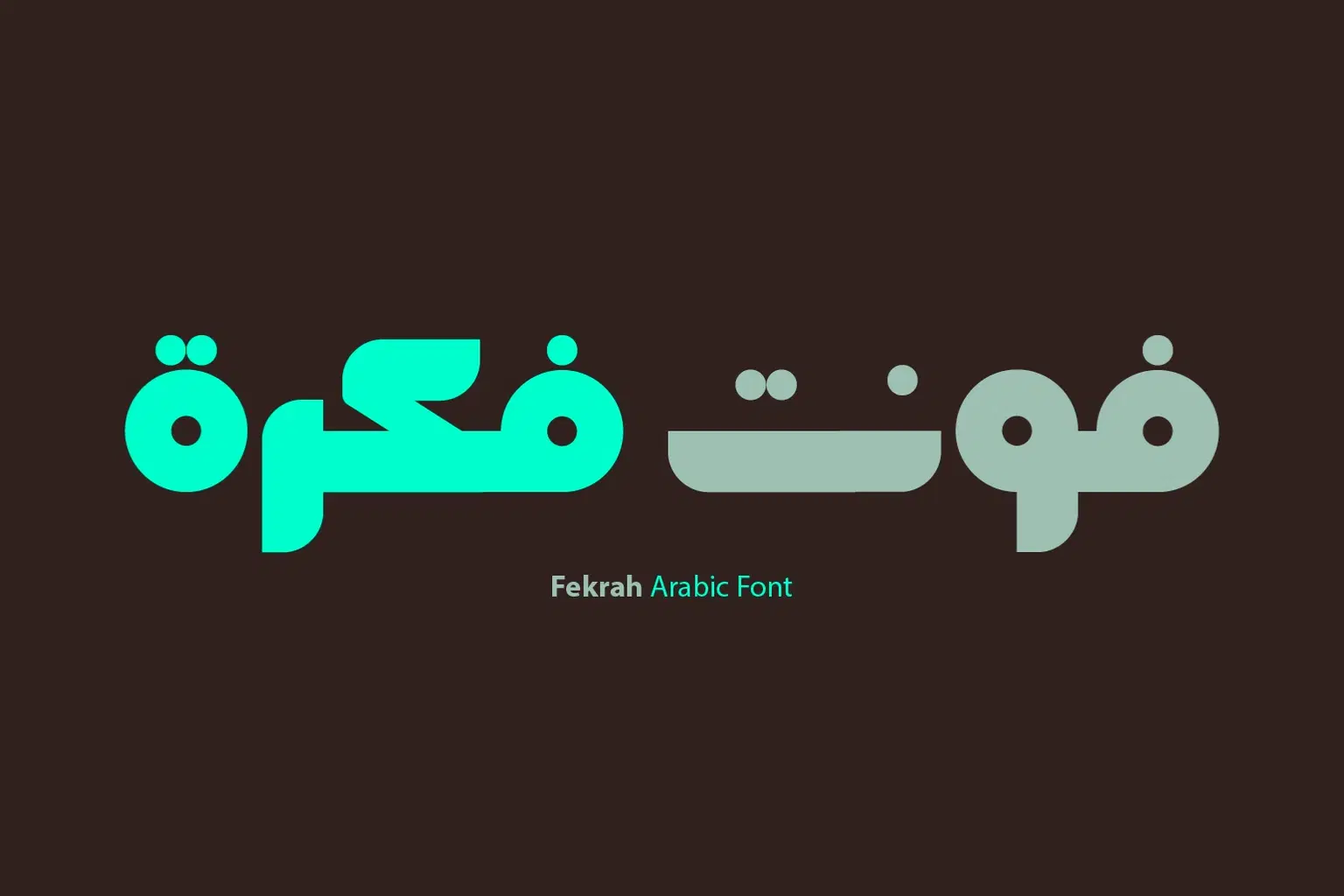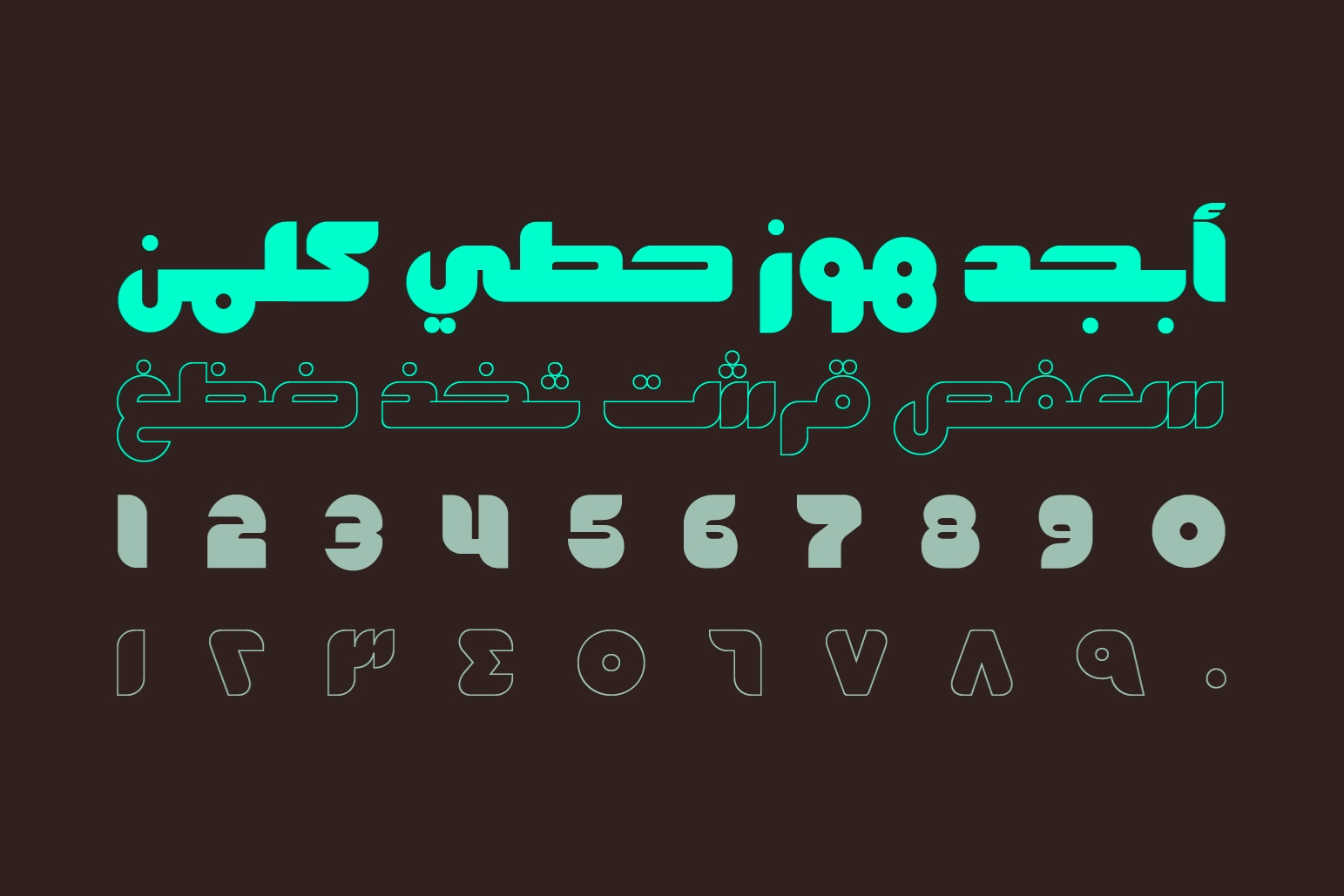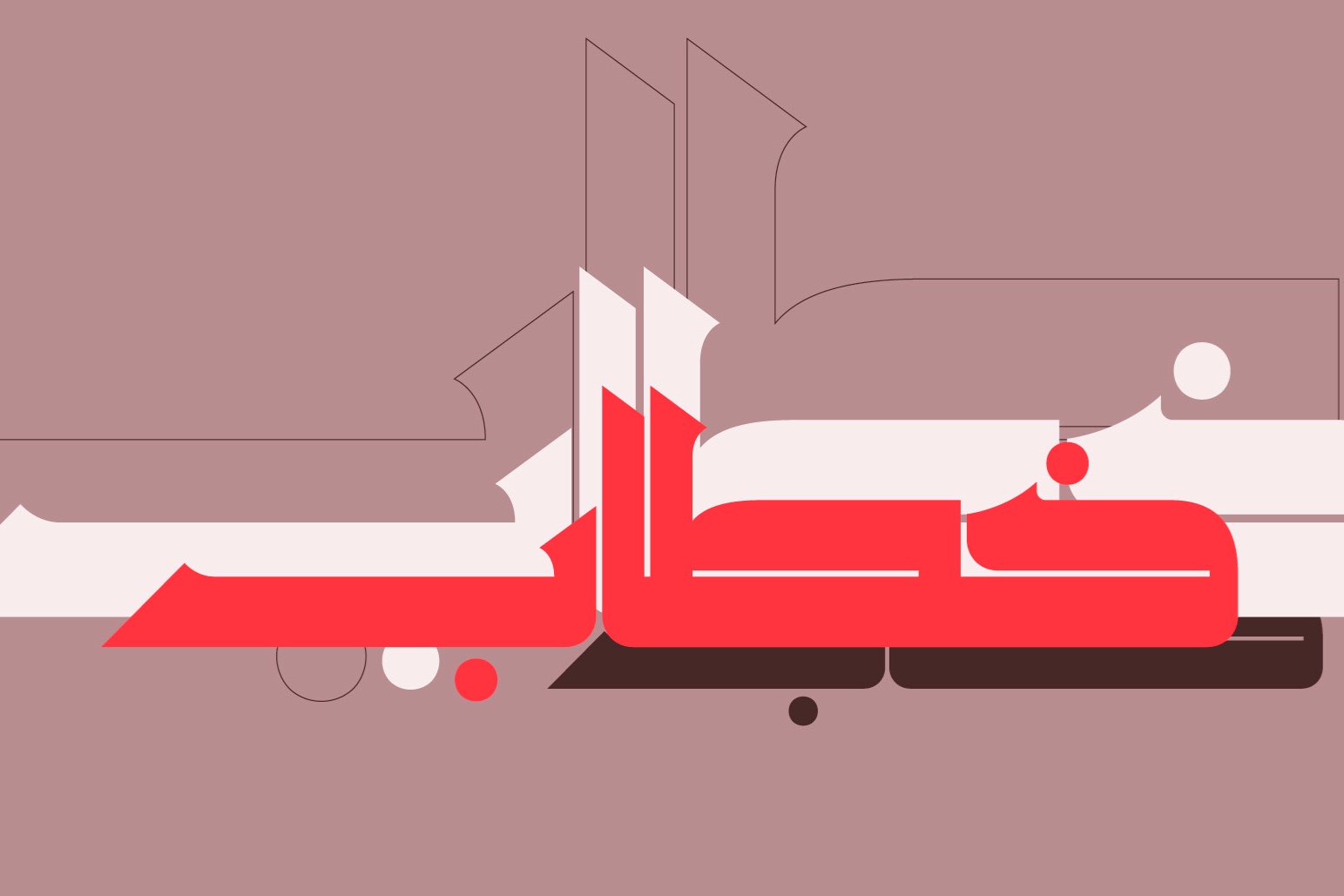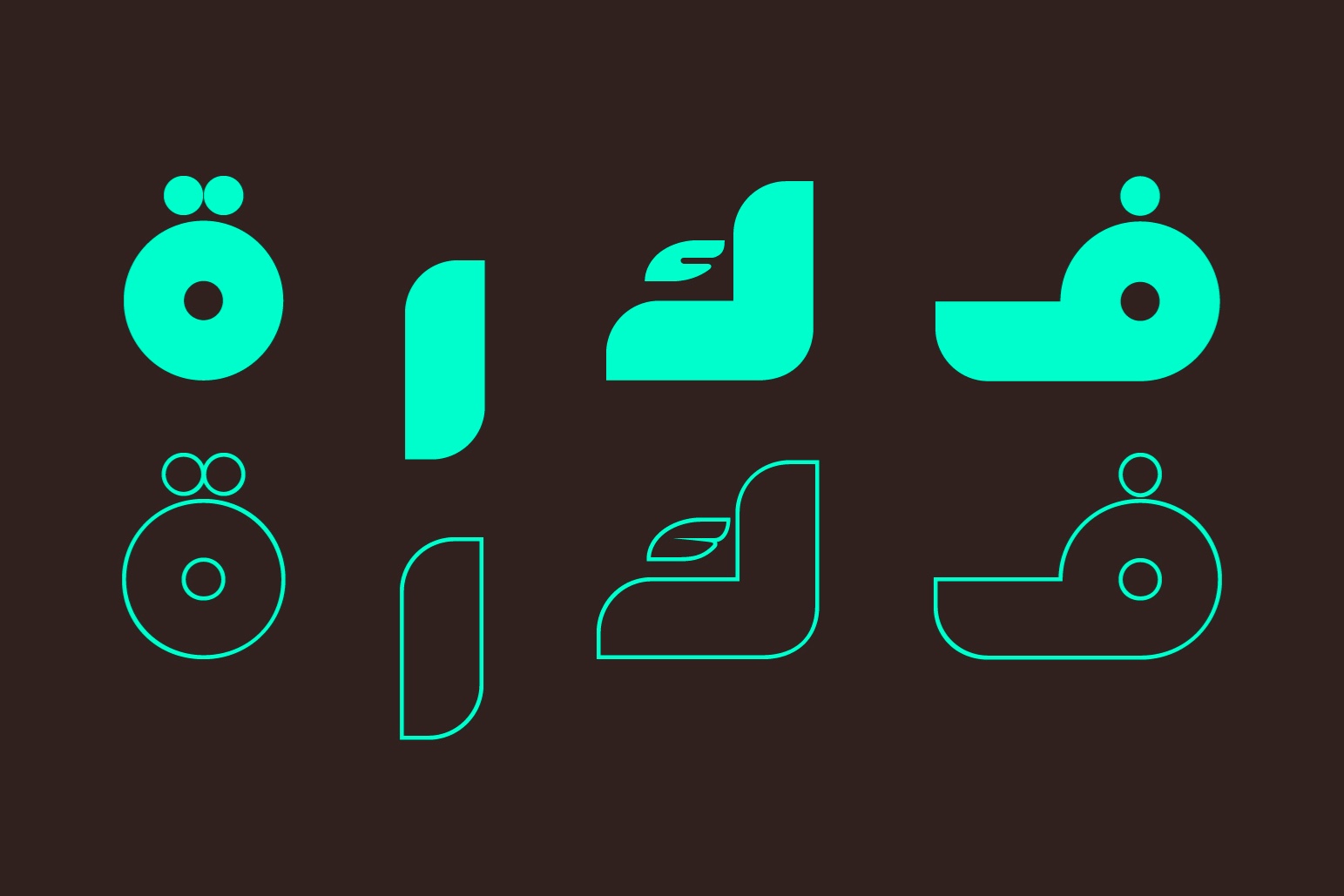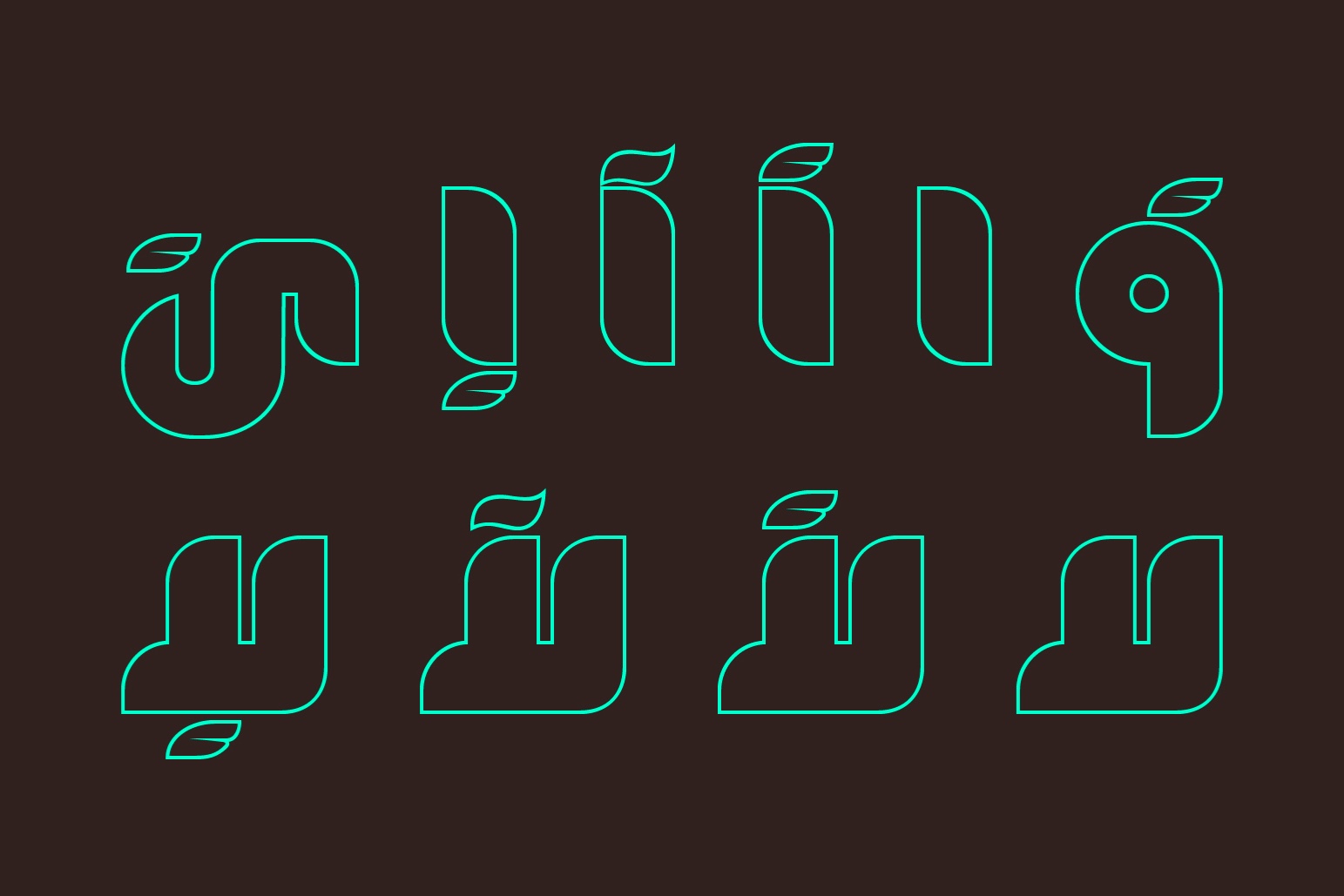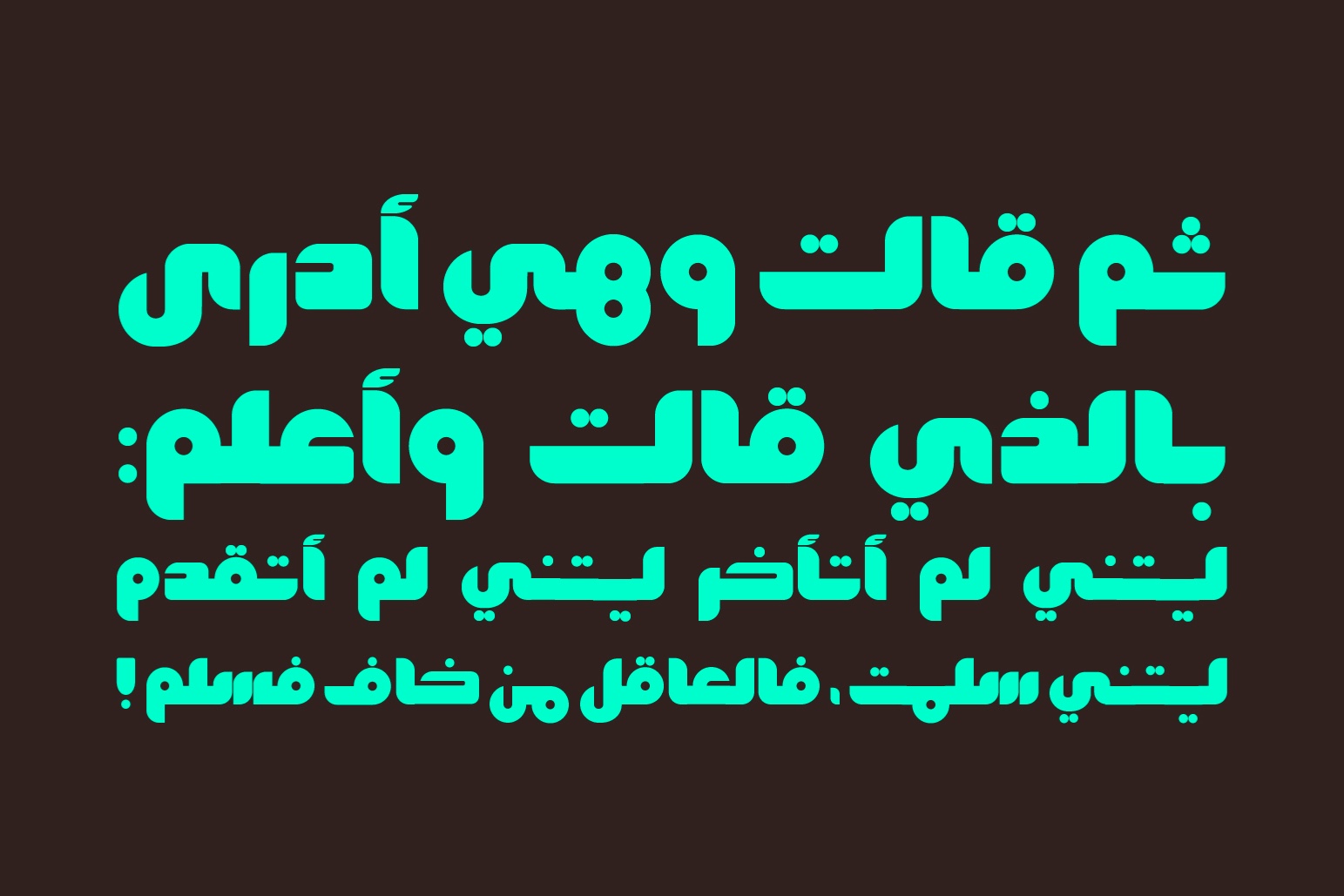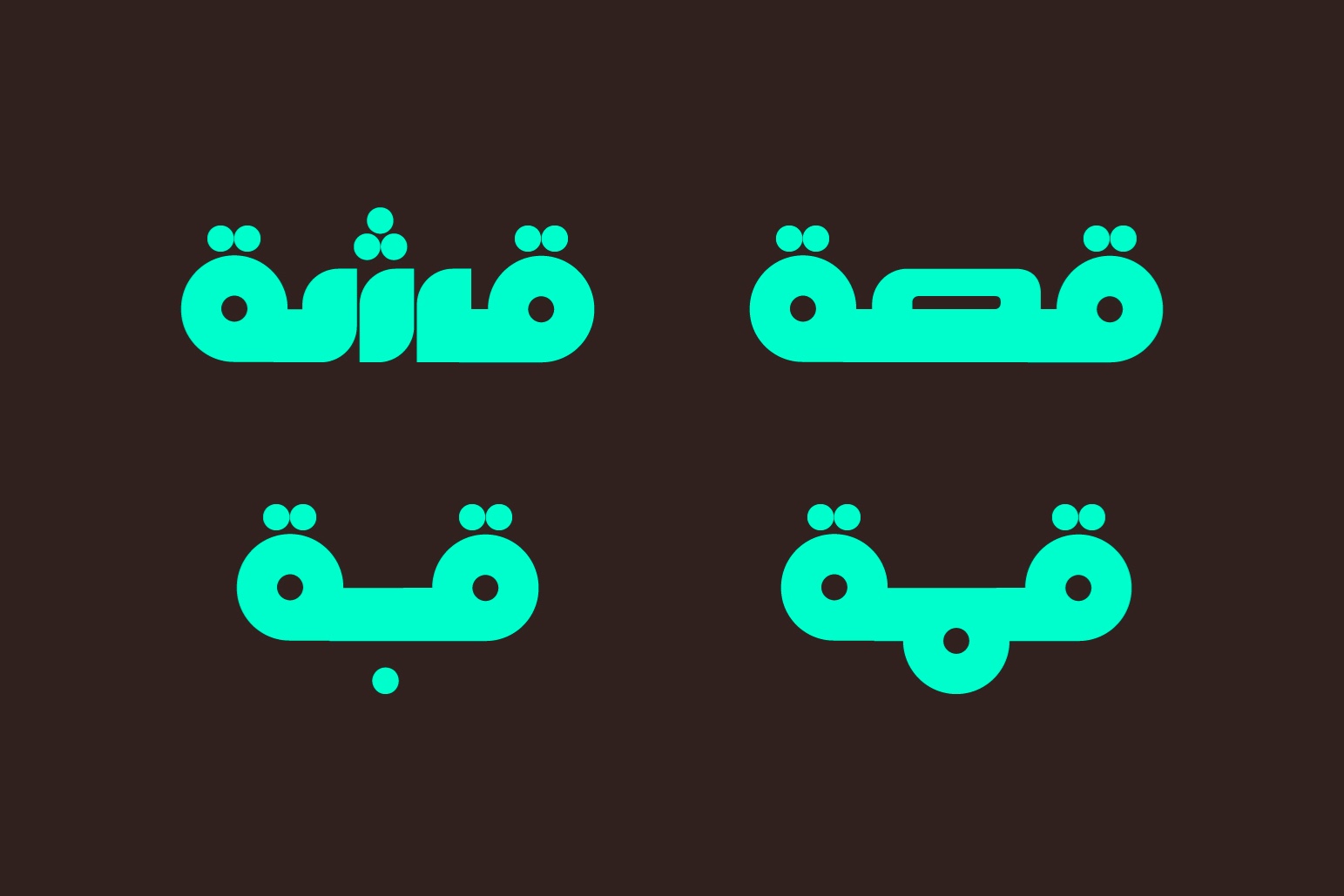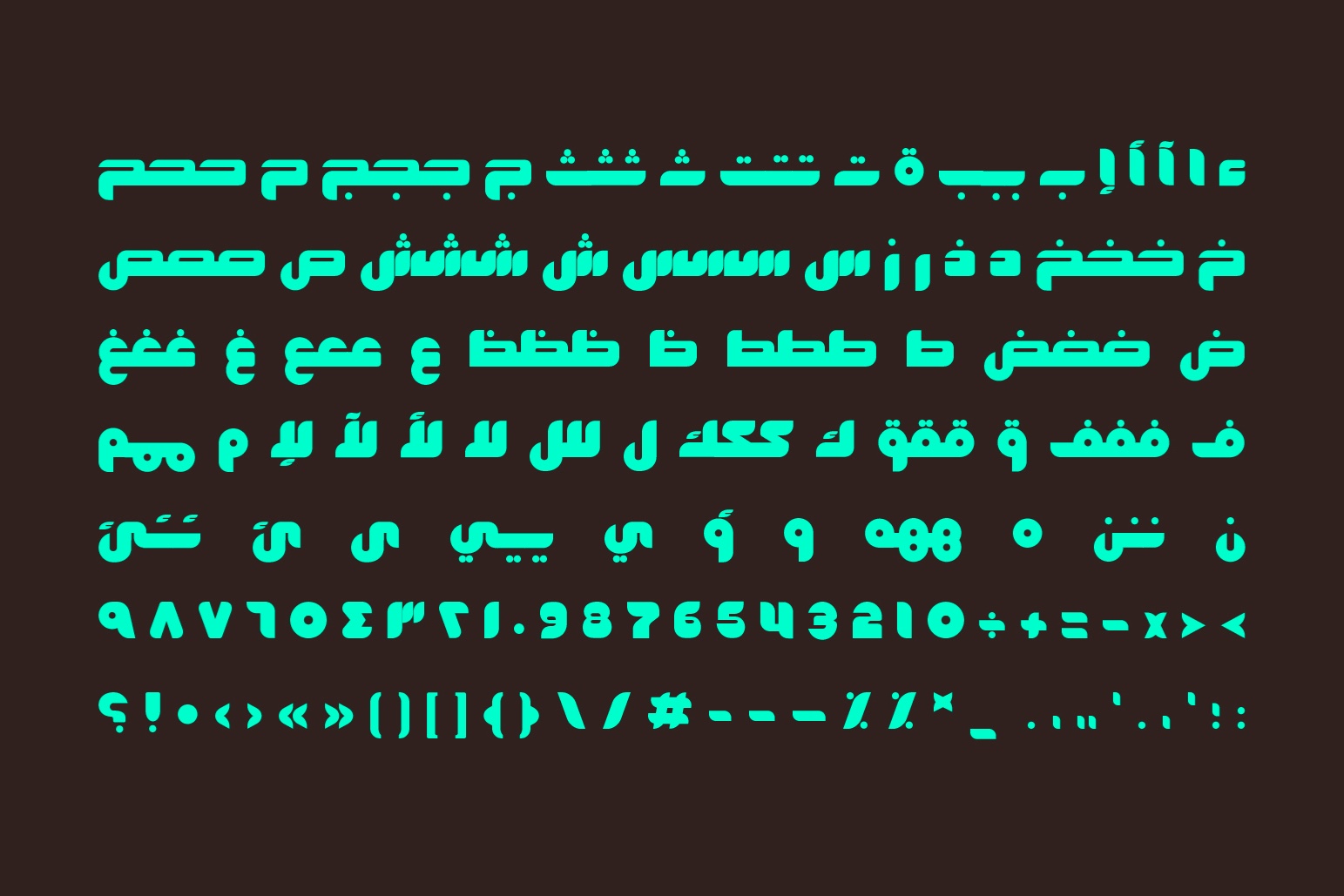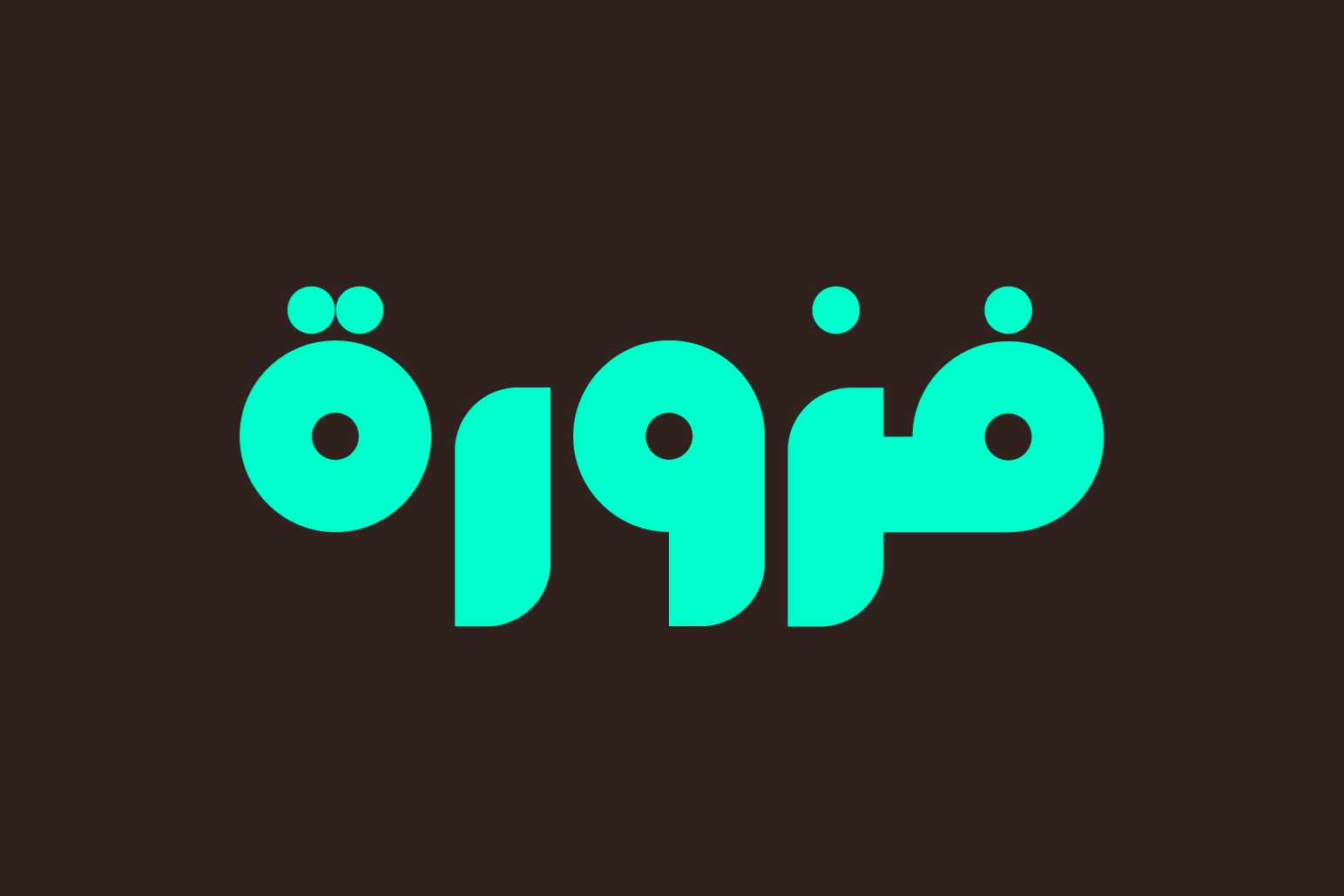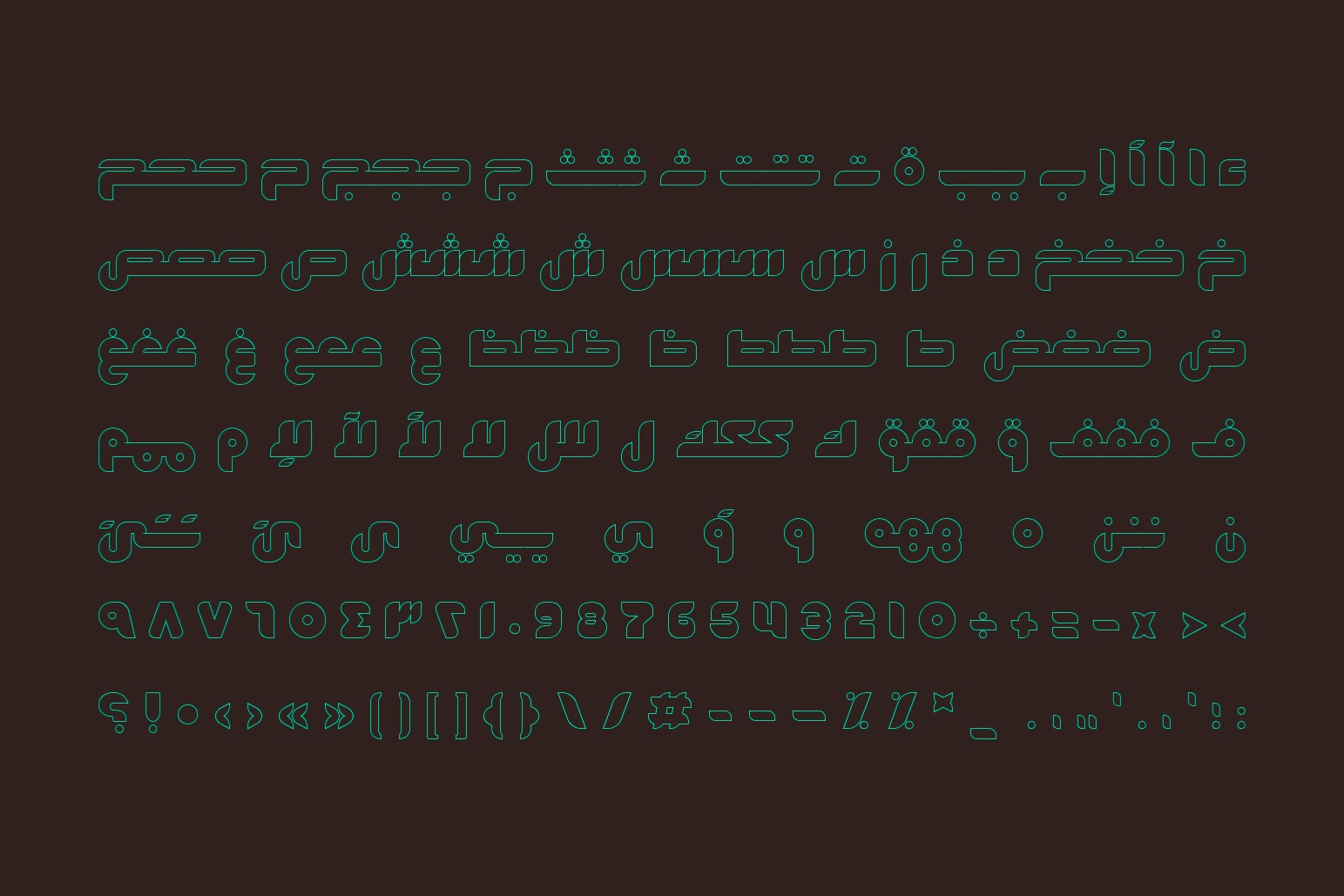
Fekrah is the Arabic word for Idea. Fekrah is a contemporary Arabic typeface that suits visual identities and modern design projects. The font consists of two styles, opaque and outlined.
Regular and outlined